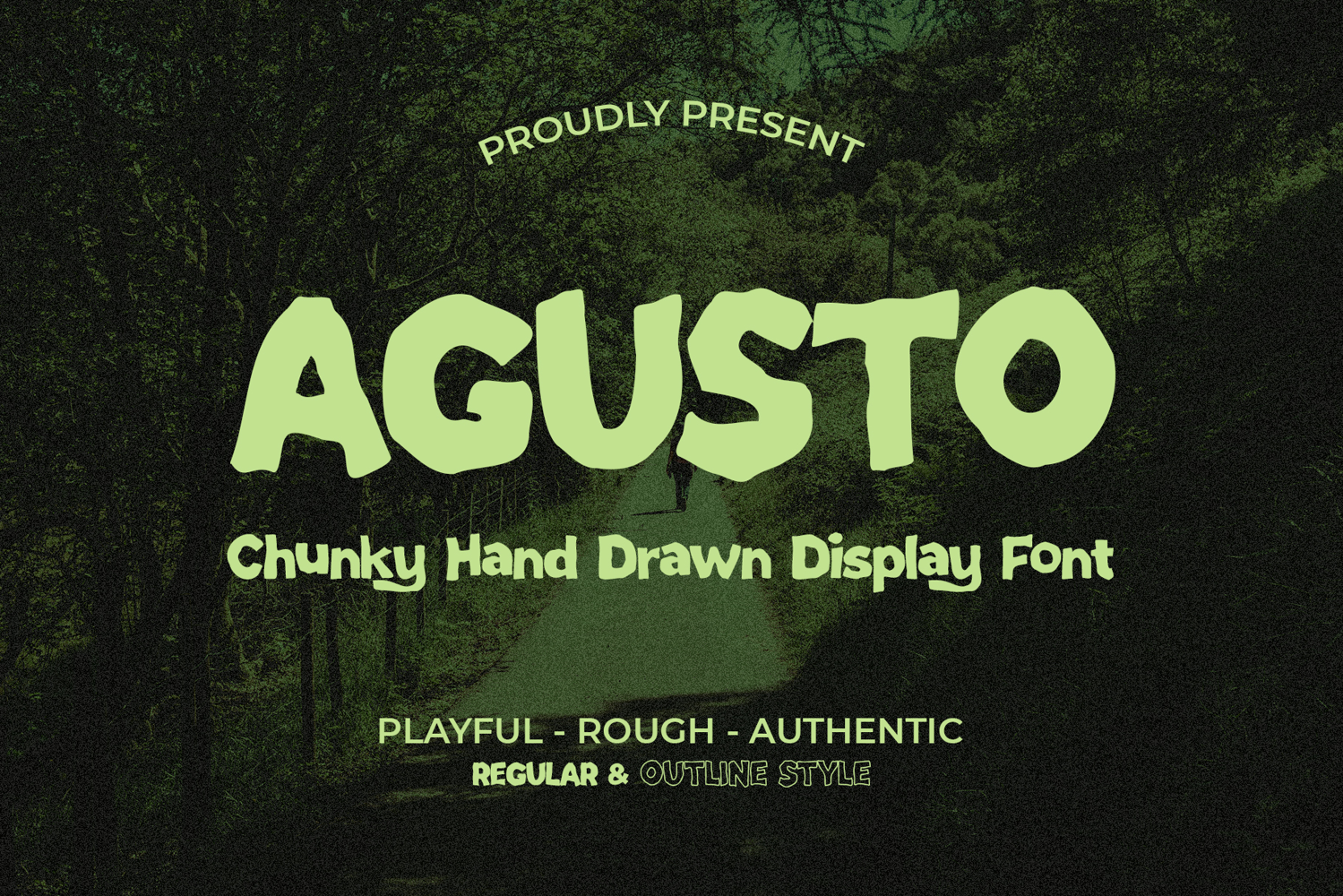
AGUSTO is a bold and playful chunky hand-drawn display font with a rough, organic, and authentic personality.
Designed with irregular handmade shapes and expressive forms, AGUSTO is perfect for projects that need a fun and distinctive typographic style. Use it for posters, t-shirts, apparel, logos, branding, stickers, packaging, invitations, social media designs, children's projects, and more.
AGUSTO comes with Regular and Outline styles, allowing you to easily create different looks and layer typography for more creative compositions.